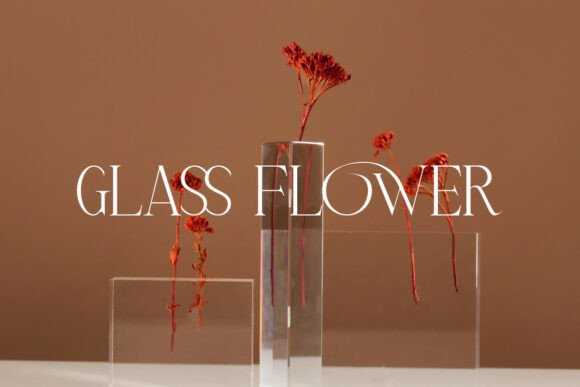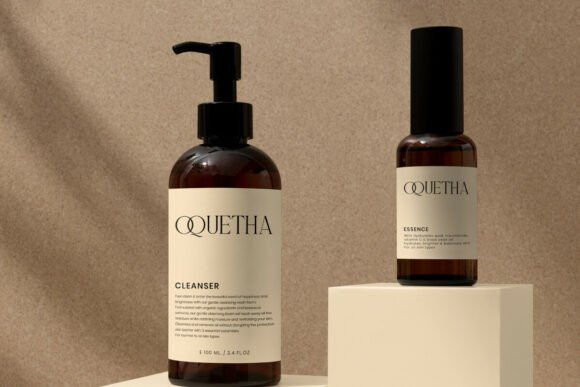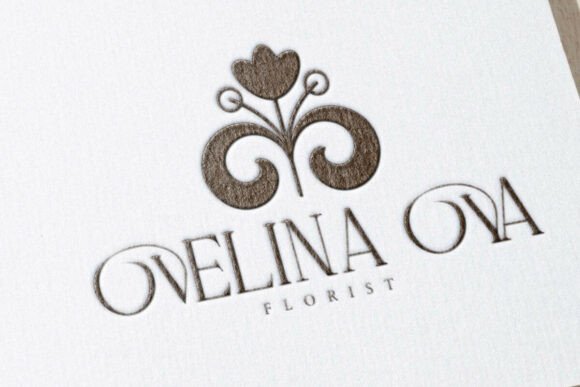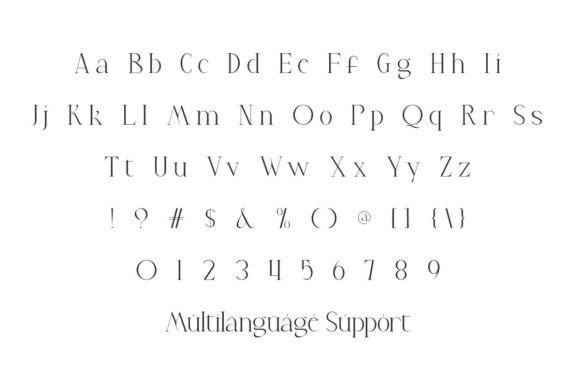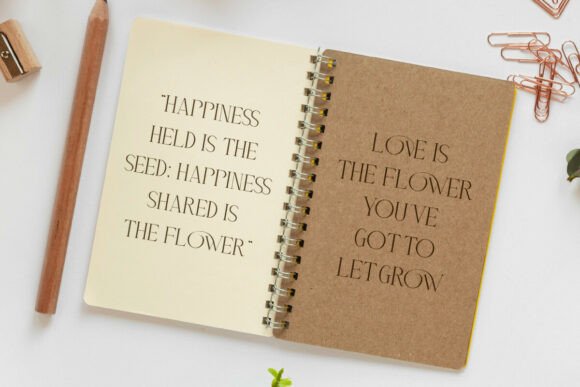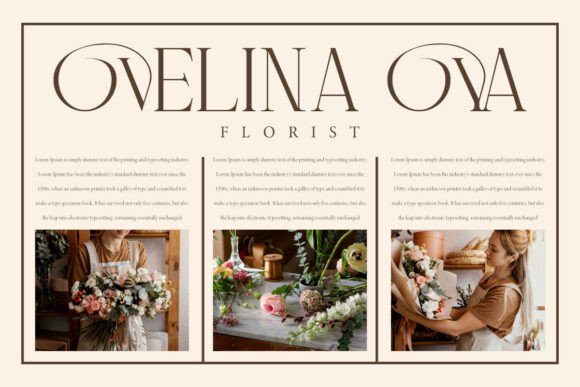
Introducing Glass Flower Font: Elevate Your Designs with Elegance and Sophistication
In the world of typography, few fonts capture the essence of luxury and high-end style as effortlessly as the Glass Flower font. This elegant and modern serif display typeface is designed to convey the fragile beauty and stark linearity of high fashion, making it the perfect choice for designers and crafters seeking to add a touch of sophistication to their projects.
A Masterclass in Minimalist Design
Glass Flower is a masterclass in minimalist design, boasting high-contrast strokes and exaggerated, delicate serifs that evoke the refined aesthetic of luxury brands. The font’s intricate details and stunning, expressive swashes give it a unique and sophisticated visual flourish, setting it apart from more mundane typefaces.
Whether you’re working on high-end branding, premium logos, elegant wedding stationery, or fashion editorial titles, Glass Flower is the quintessential choice for designers seeking to make a lasting impression. Its unusual, graceful form elevates any design, making it feel bespoke and incredibly chic.
Perfect for Projects that Demand Simple Elegance
Glass Flower is a display font that proves that sometimes, simple elegance speaks louder than ornamentation. This stunning font is perfect for projects where a refined and memorable touch is required, such as:
- High-end branding and logos
- Elegant wedding stationery and invitations
- Fashion editorial titles and magazine spreads
- Premium product packaging and labels
- Luxury event marketing materials
PUA-Encoded for Effortless Customization
One of the standout features of Glass Flower is its PUA (Private Use Area) encoding, which ensures effortless access to all glyphs, swashes, and alternate characters. This means that designers can customize their creations with ease, experimenting with different combinations of characters to achieve the perfect look.
Why Choose Glass Flower Font?
So why choose Glass Flower font for your next design project? Here are just a few compelling reasons:
- Elegance and sophistication: Glass Flower exudes luxury and refinement, making it perfect for high-end designs.
- Versatility: This font is suitable for a wide range of projects, from branding and logos to editorial titles and packaging.
- Customization: With PUA encoding, designers can easily access and customize glyphs, swashes, and alternate characters.
- Memorability: Glass Flower’s unique and expressive design ensures that your project will stand out and be remembered.
Tips for Using Glass Flower Font
To get the most out of Glass Flower font, here are a few tips to keep in mind:
- Use it sparingly: Due to its elegant and sophisticated nature, Glass Flower font is best used sparingly to make a lasting impact.
- Experiment with swashes: The font’s expressive swashes can add a touch of drama and flair to your design – don’t be afraid to experiment!
- Pair it with complementary fonts: Glass Flower pairs well with clean, sans-serif fonts – try pairing it with a font like Helvetica or Arial for a striking contrast.
In conclusion, Glass Flower font is a stunning and sophisticated typeface that is sure to elevate any design project. With its elegant and modern design, high-contrast strokes, and exquisite swashes, this font is the perfect choice for designers and crafters seeking to convey luxury, exclusivity, and subtle glamour. Whether you’re working on high-end branding, elegant wedding stationery, or fashion editorial titles, Glass Flower is the quintessential choice for adding a refined and memorable touch to your creations.